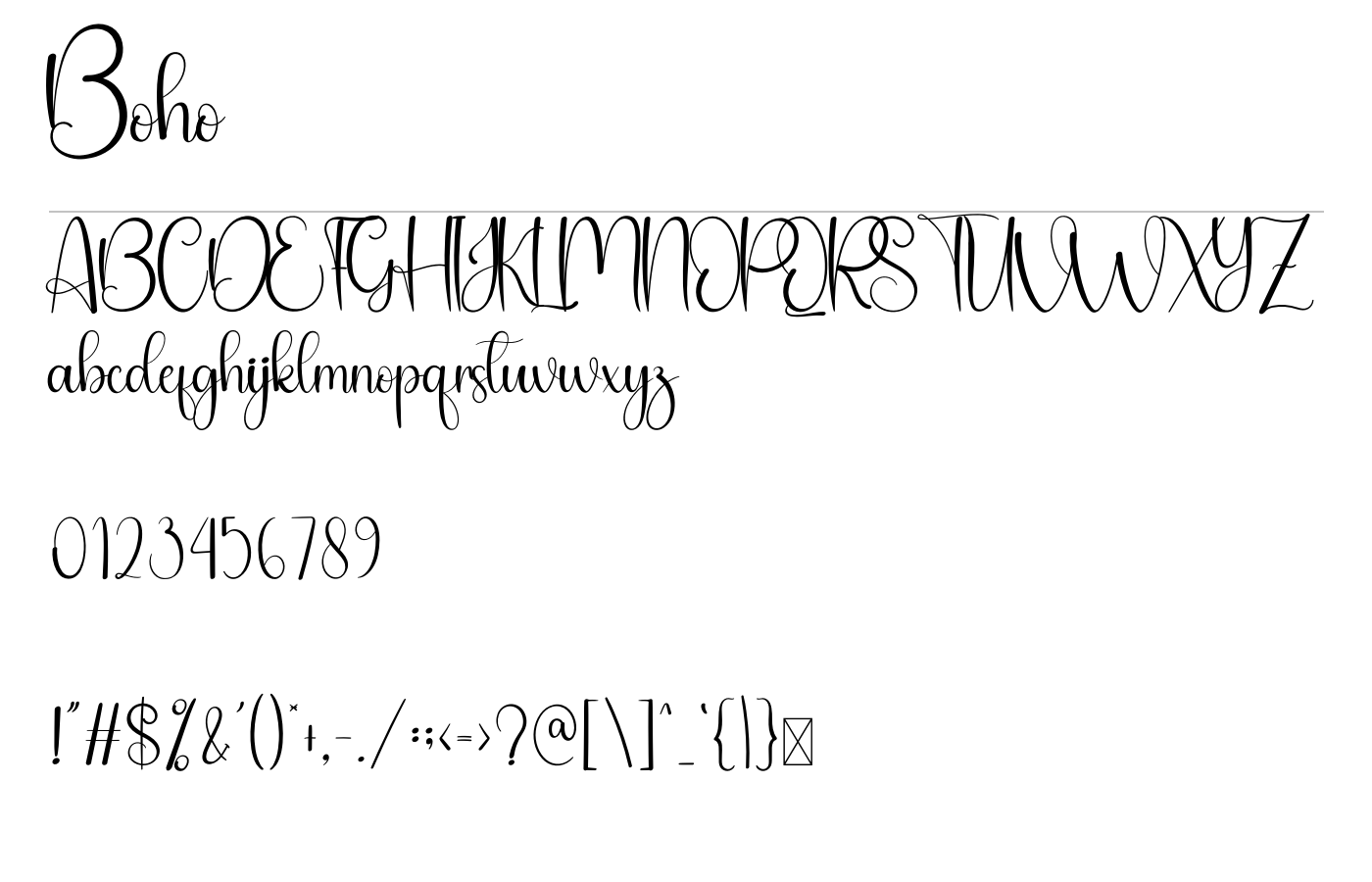
Boho Font is a delicate, handwritten script with slender, flowing letterforms that blend elegance with a casual, artistic vibe. Its tall, narrow characters and fine strokes give it a light, airy feel, making it perfect for creative branding, invitations, and feminine designs that seek a stylish yet approachable look. This font works well for headlines and decorative text where a personal, handcrafted touch is desired.
Boho Font
About Boho Font